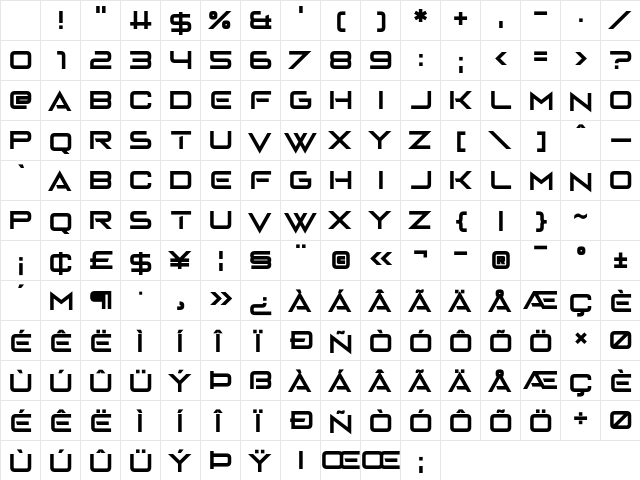
Complete Spiced Rum Supernova Straight Regular glyph index. Displaying only characters natively supported by Spiced Rum Supernova Straight Regular font.
Spiced Rum Supernova Straight is a composed and adaptable typeface that performs quietly and consistently across a wide range of design contexts.
Pro Tip: Use Spiced Rum Supernova Straight in both headline and body roles to test its range before committing to a single application.